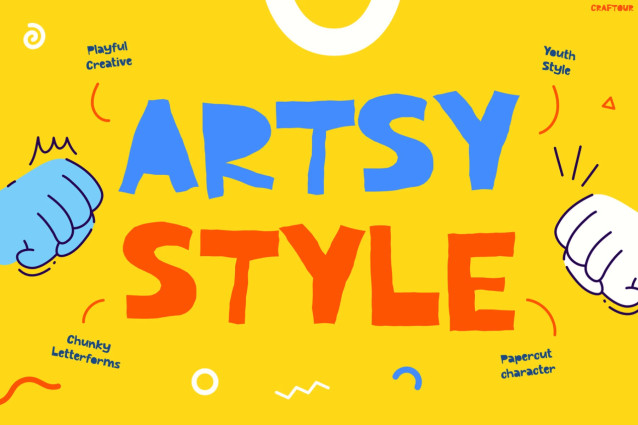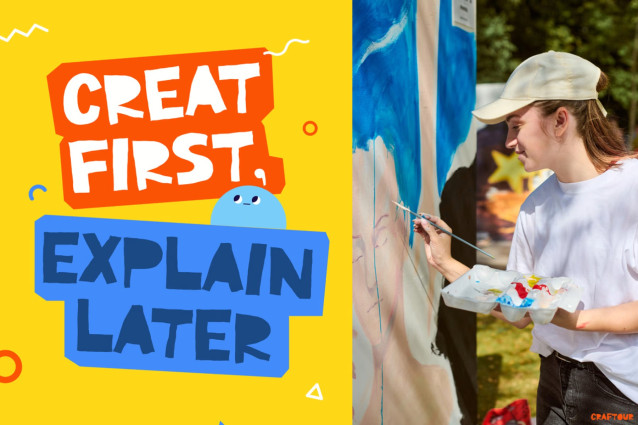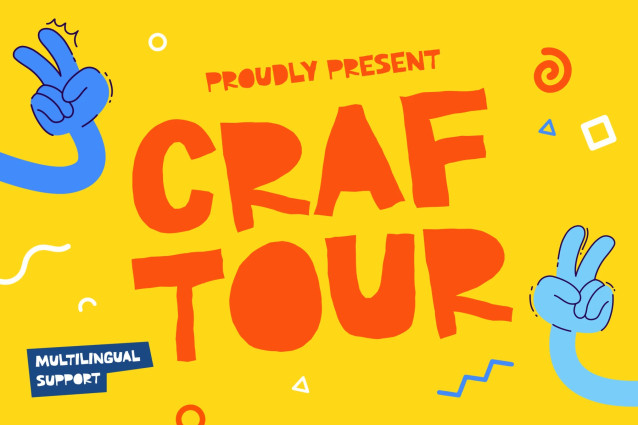
Craftour Font
Kids Font Craftour is a cheerful display font created to bring imagination, creativity, and joyful expression into every design. Not only does it feature bold rounded letterforms, but it also combines playful shapes and handcrafted imperfections that create a lively and approachable personality. Moreover, its colorful and energetic aesthetic makes every word feel fun and full of movement. In addition, the chunky structure provides excellent readability while maintaining a cute and artistic appearance. Furthermore, Craftour transforms ordinary layouts into eye-catching visual experiences.
As a result, posters, packaging, branding, and social media designs instantly become more engaging and memorable. Additionally, with support for 67 languages, Craftour allows creators to spread creativity and happiness across global audiences.